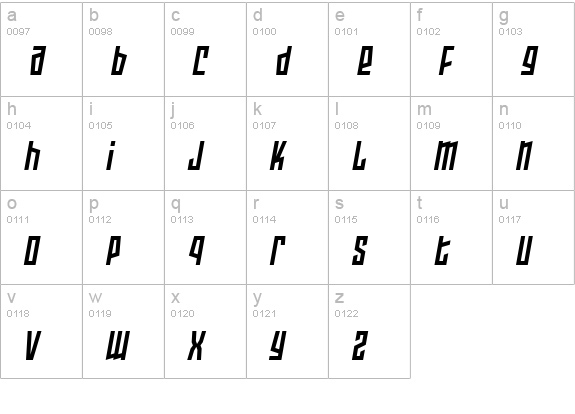
Armor Piercing 2.0 BB Italic Font Details
Armor Piercing 2.0 BB Italic is a distinctive, italic variant in the Armor typeface family \xE2\x80\x94 well suited to design and typography projects.
Armor Piercing 2.0 BB Italic font is a bold and striking typeface that exudes power and strength. With its sharp and angular design, this font is perfect for making a statement in your designs. The Armor Piercing 2.0 BB Italic font features enhanced legibility and modern aesthetics, making it a versatile choice for a wide range of projects. What sets this font apart is its Armor Piercing 2.0 BB Italic font, which adds a touch of sophistication and style to any design. Whether you're creating posters, logos, or branding materials, this font will help your work stand out from the crowd. Best of all, Armor Piercing 2.0 BB Italic font is completely free to download at FontsMarket.com. So why wait? Download this powerful and eye-catching font today and take your designs to the next level.